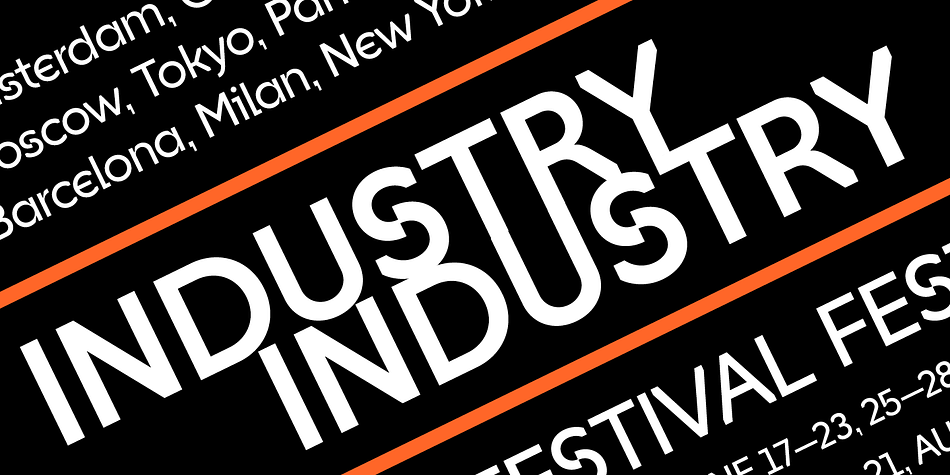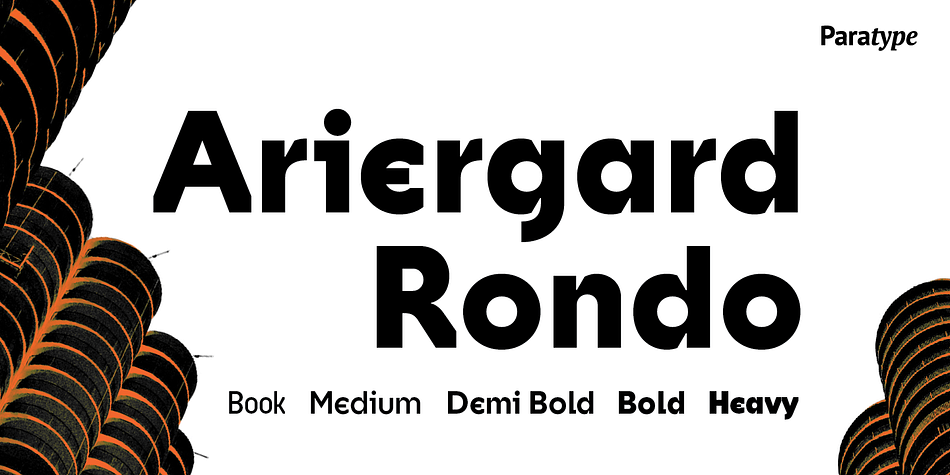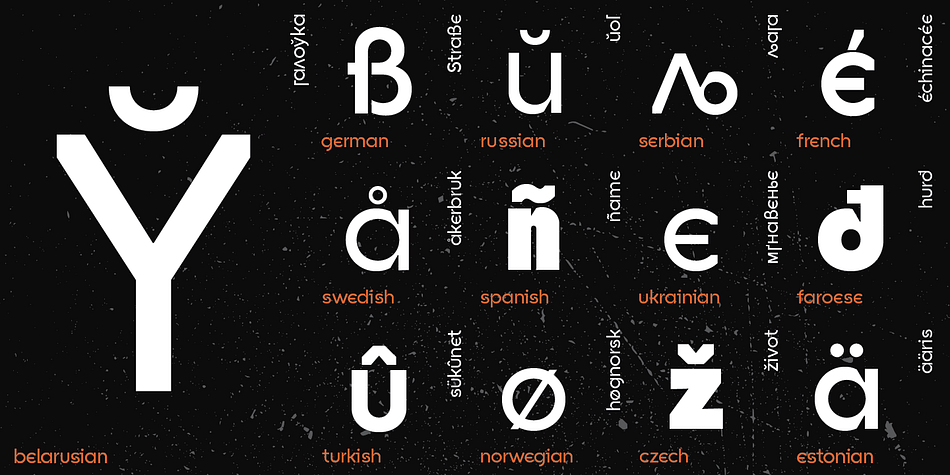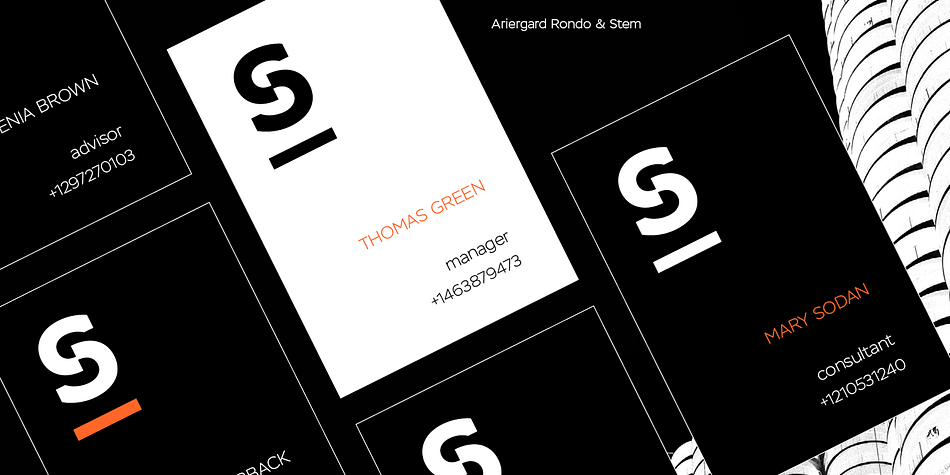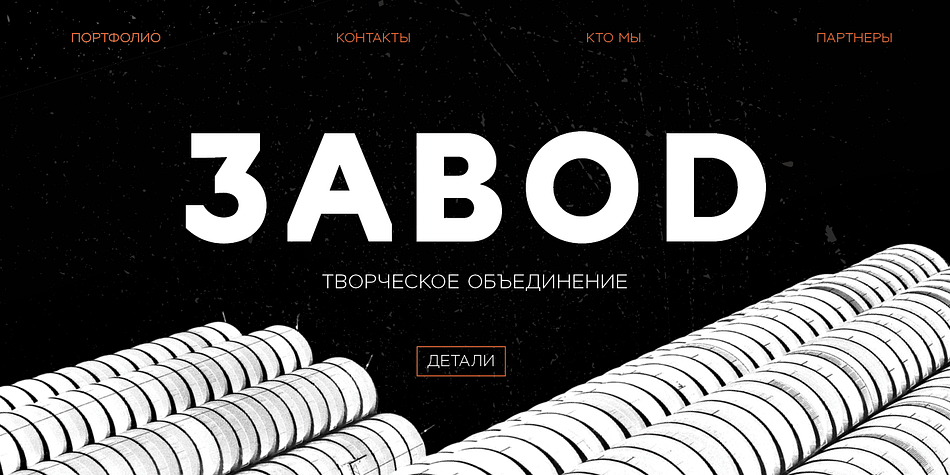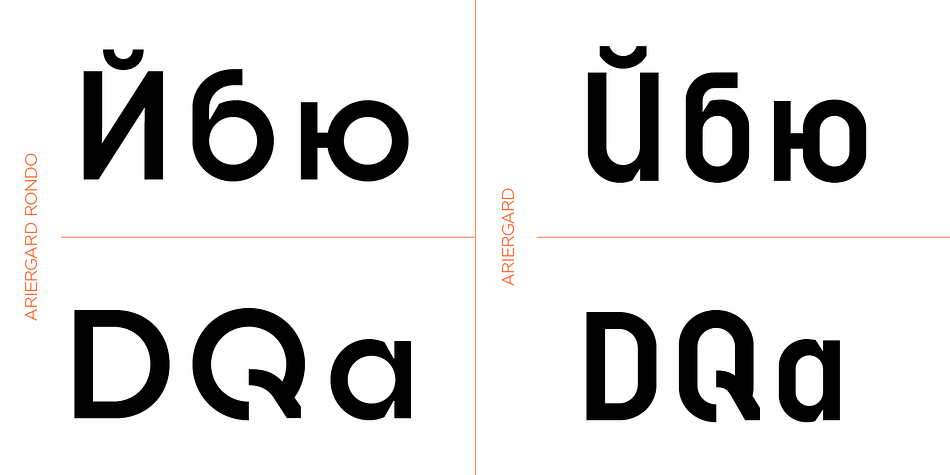
Designed by Oleg Karpinsky, Ariergard Rondo is a sans serif font family. This typeface has five styles and was published by ParaType.
Type family of five weights was designed by Oleg Karpinsky in 2005 and licensed by ParaType. AriergardRondo is supplemental to Ariergard by the same author designed earlier. It differs with sharp geometrical letterforms and with circular shapes of round letters. The face includes antique Cyrillic letter shapes: N has diagonal stroke, uppercase Y and Ч are equilateral. Both lc г and т have ascenders. For use in advertising and display typography.